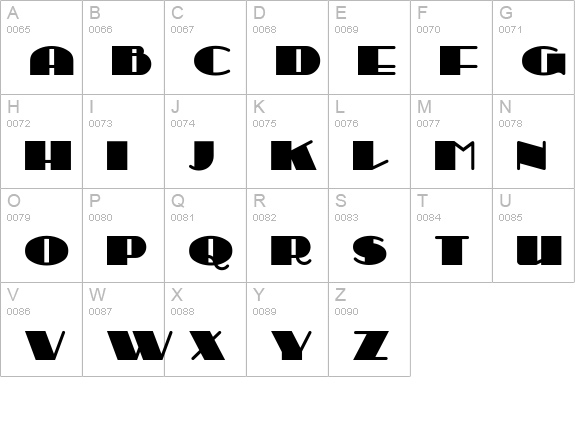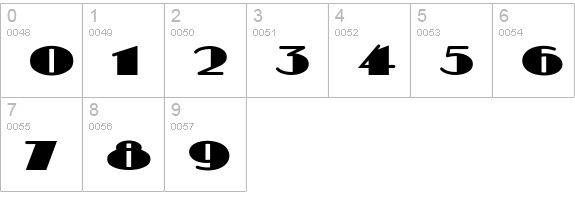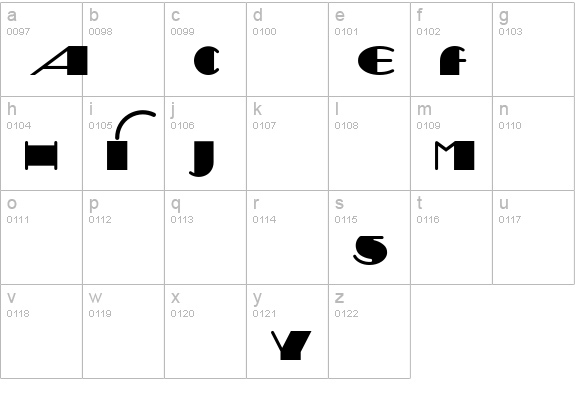
Sesquipedalian Font Details
Introducing the magnificent Sesquipedalian font, a true masterpiece in the world of typography. With its intricate design and meticulously crafted details, this font is sure to captivate and mesmerize even the most discerning of font enthusiasts. Sesquipedalian font is an embodiment of elegance and sophistication. Its elongated letterforms gracefully dance across the page, exuding an air of refined charm. Each stroke is carefully constructed, showcasing the incredible artistry behind this extraordinary typeface. This font is not just aesthetically pleasing, but also highly versatile. From elegant invitations to sophisticated logos, Sesquipedalian effortlessly adapts to any design project, adding a touch of class and sophistication. Its legibility is unparalleled, ensuring that every word is beautifully showcased, making it perfect for both print and digital media. What makes Sesquipedalian even more extraordinary is that it is freely available to download at FontsMarket.com. This means that anyone with a passion for design can enjoy the beauty and intricacy of this font without any limitations. Whether you are a professional designer or an aspiring artist, Sesquipedalian is here to elevate your creative endeavors. So, why wait? Discover the enchanting world of Sesquipedalian font and let your imagination run wild. With its impeccable design and the freedom of accessibility, this font is a true gem in the vast sea of typography. Download it now at FontsMarket.com and watch as your designs come to life with an unparalleled sense of elegance and sophistication.